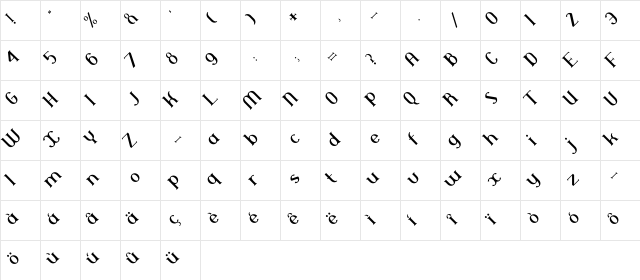
ClassicusTitulus LT Std Regular
| Foundry | Linotype Library GmbH |
| Designer | Michael Parson |
Design Context for ClassicusTitulus LT Std Typeface
ClassicusTitulus LT Std has the warm character of retro typography — evoking diners, record sleeves, and the golden age of print advertising. The delicate stroke weight brings airiness and refinement to layouts.
Font Pairing: Combine ClassicusTitulus LT Std with a simple slab or neutral sans — period-accurate companions reinforce the vintage feel without competing for attention.
Pro Tip: Use ClassicusTitulus LT Std for headlines and pull quotes rather than body copy — its personality is best appreciated in short, focused bursts.